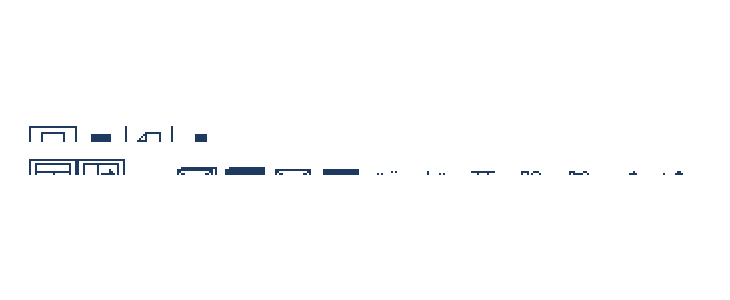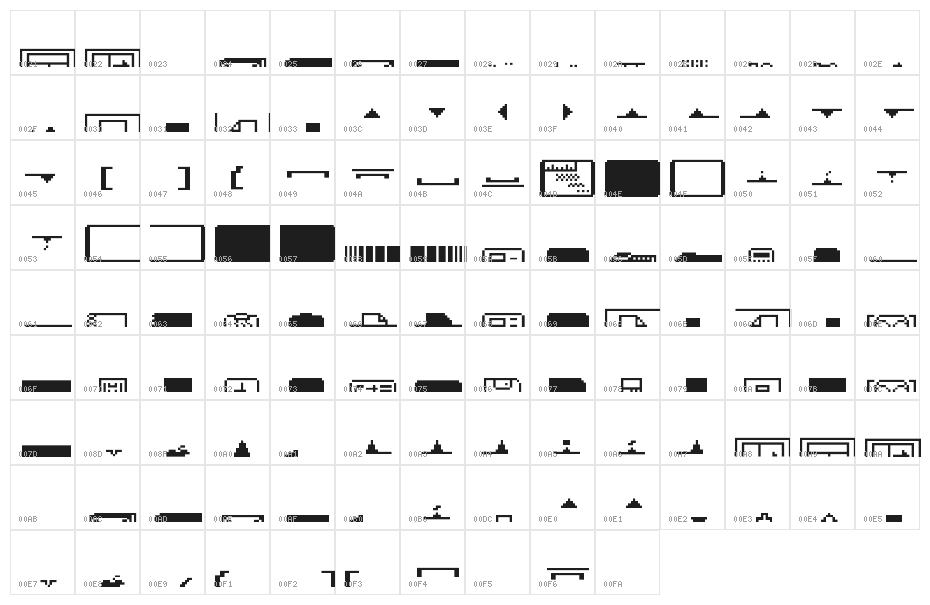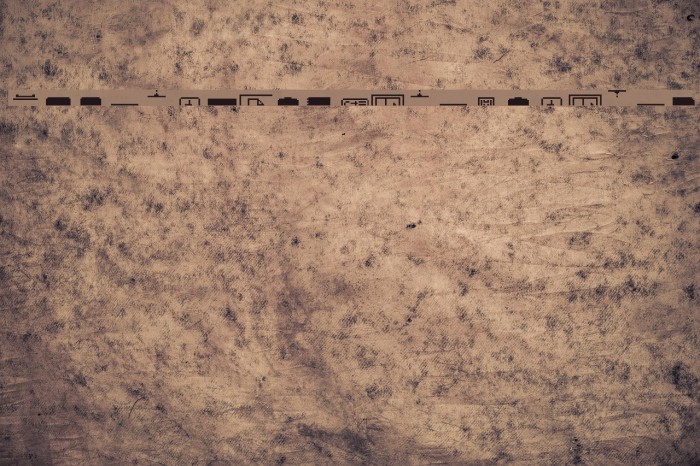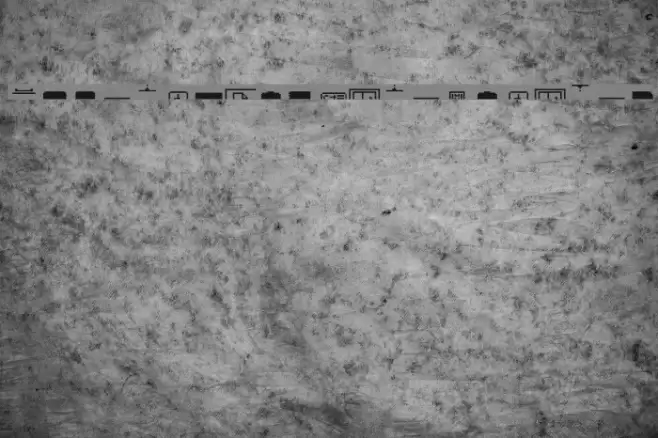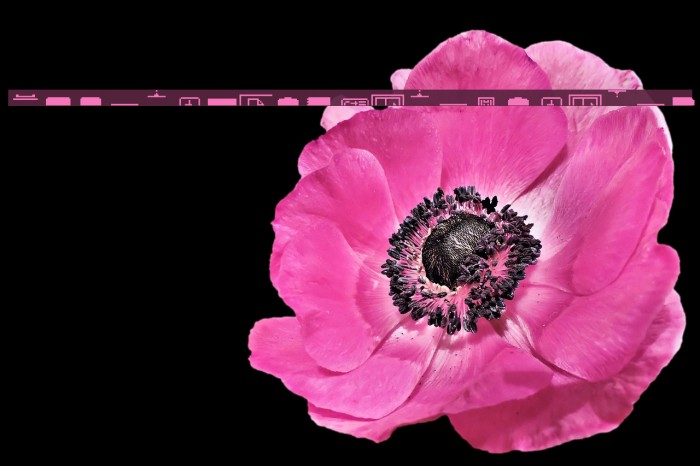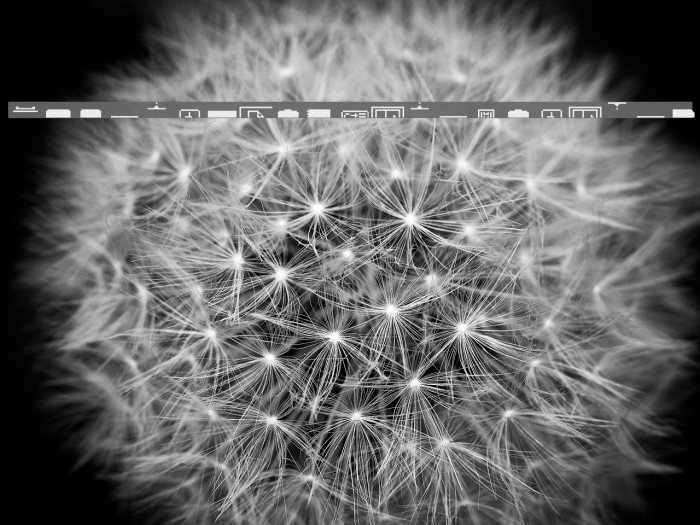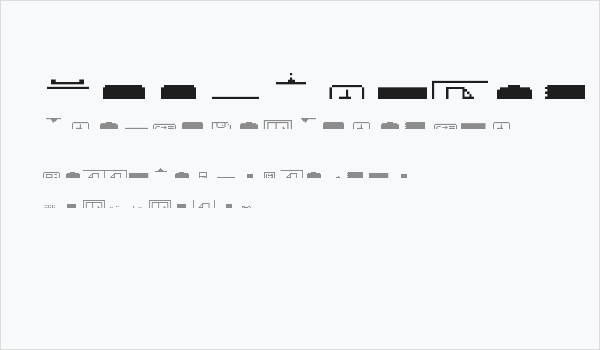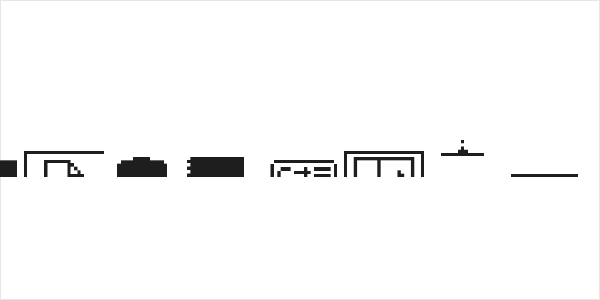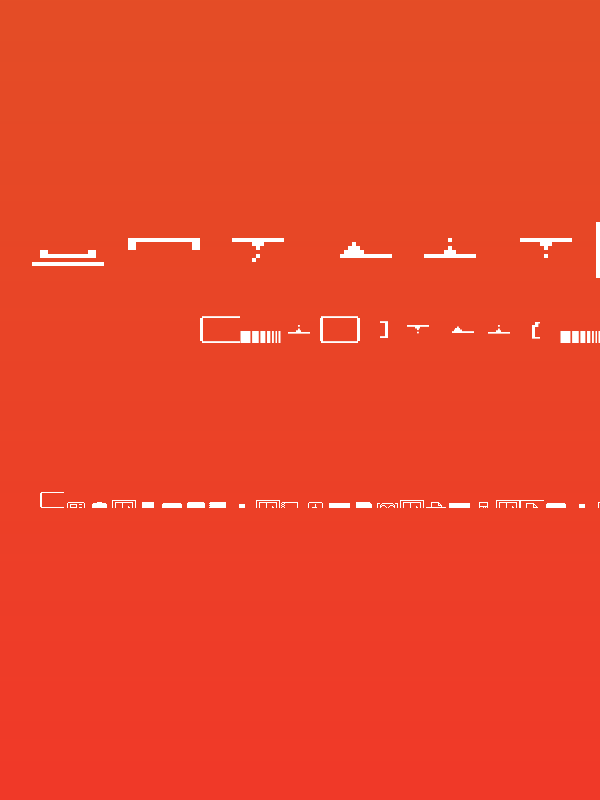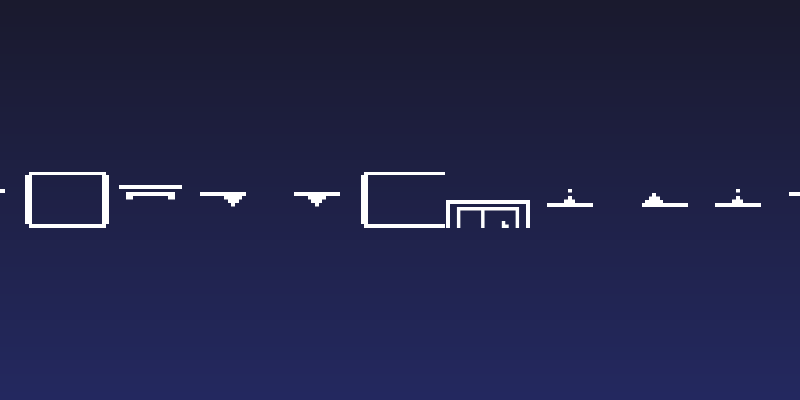
LisaProject Paper Raw Font
LisaProject Paper Raw Description
This design features a series of abstract geometric shapes and symbols rather than a traditional font. The elements are composed of simple lines and blocks, creating a minimalist and modern aesthetic. The characters are not recognizable as standard alphanumeric symbols, instead resembling a series of icons or pictograms. The overall style is highly decorative and could be used for artistic or design purposes where a unique and unconventional look is desired.
| Use Case | Logos, Artistic designs |
| Proposed Projects | Ideal for use in graphic design projects, modern art installations, or as decorative elements in digital media. |